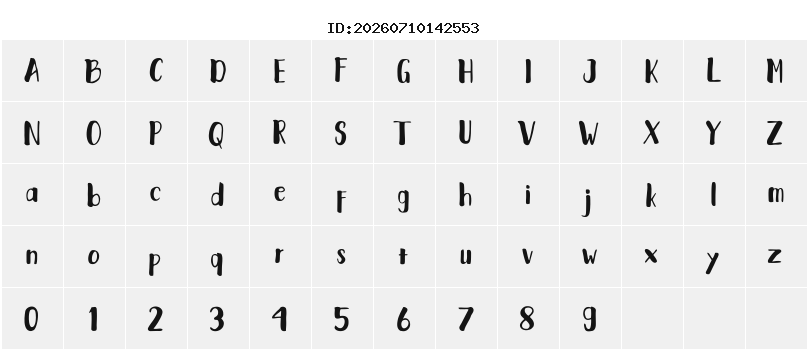
Fantai Preview
• Font Name: Fantai
• Full Font Name: Fantai Regular
• PostScript Name: Fantai
About Fantai.ttf
Fantai.ttf is a modern, elegant sans-serif font designed for ultimate readability and visual harmony. Perfect for branding, headlines, web design, and print materials.